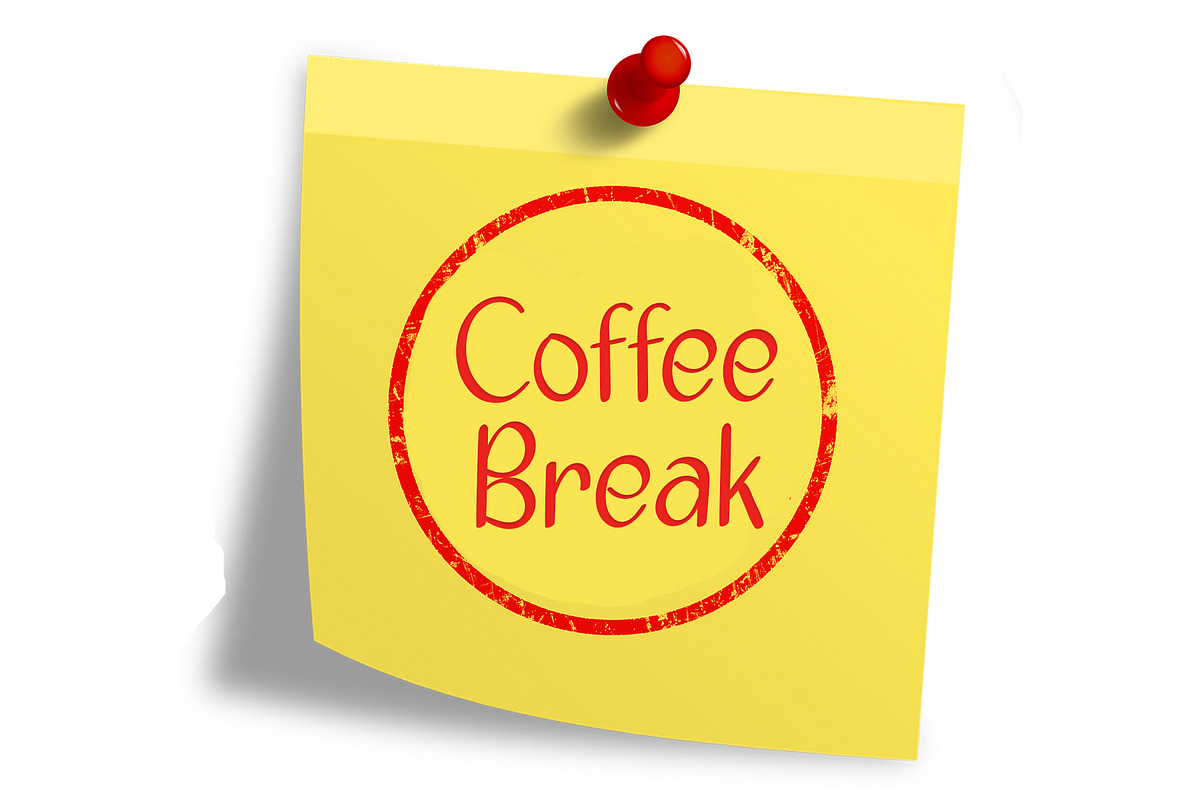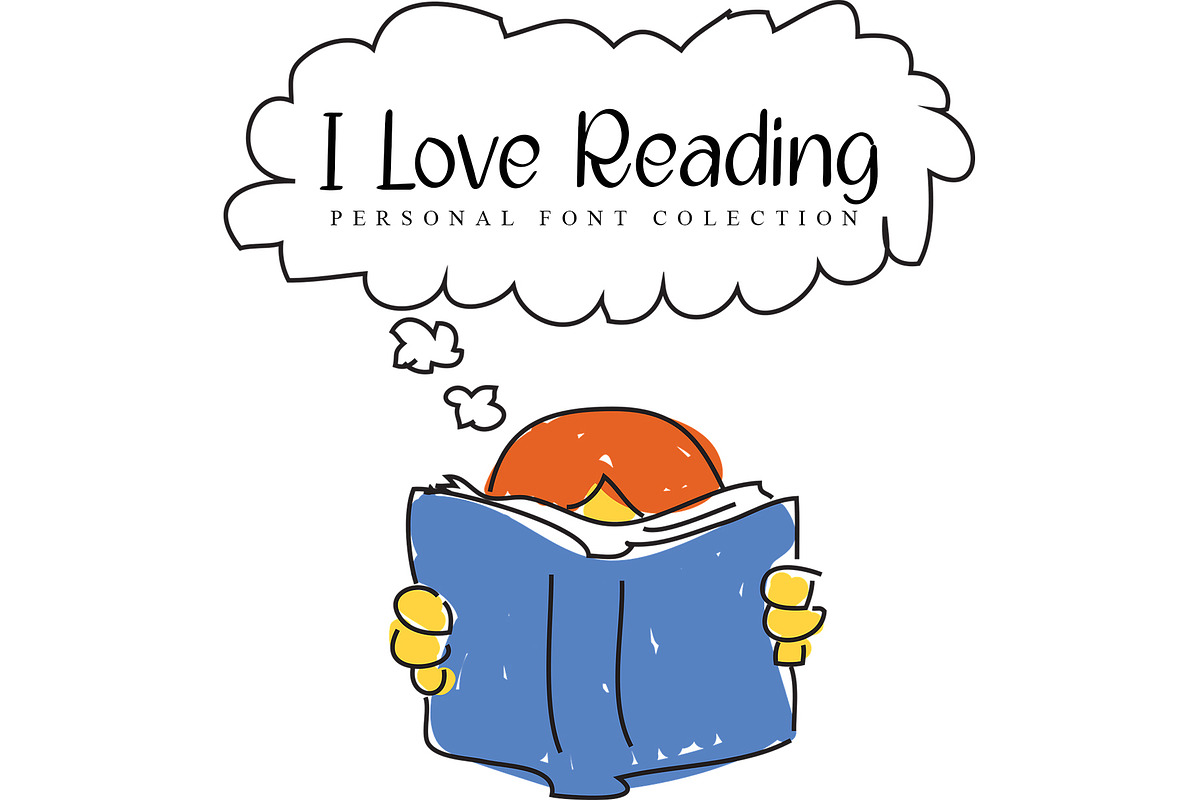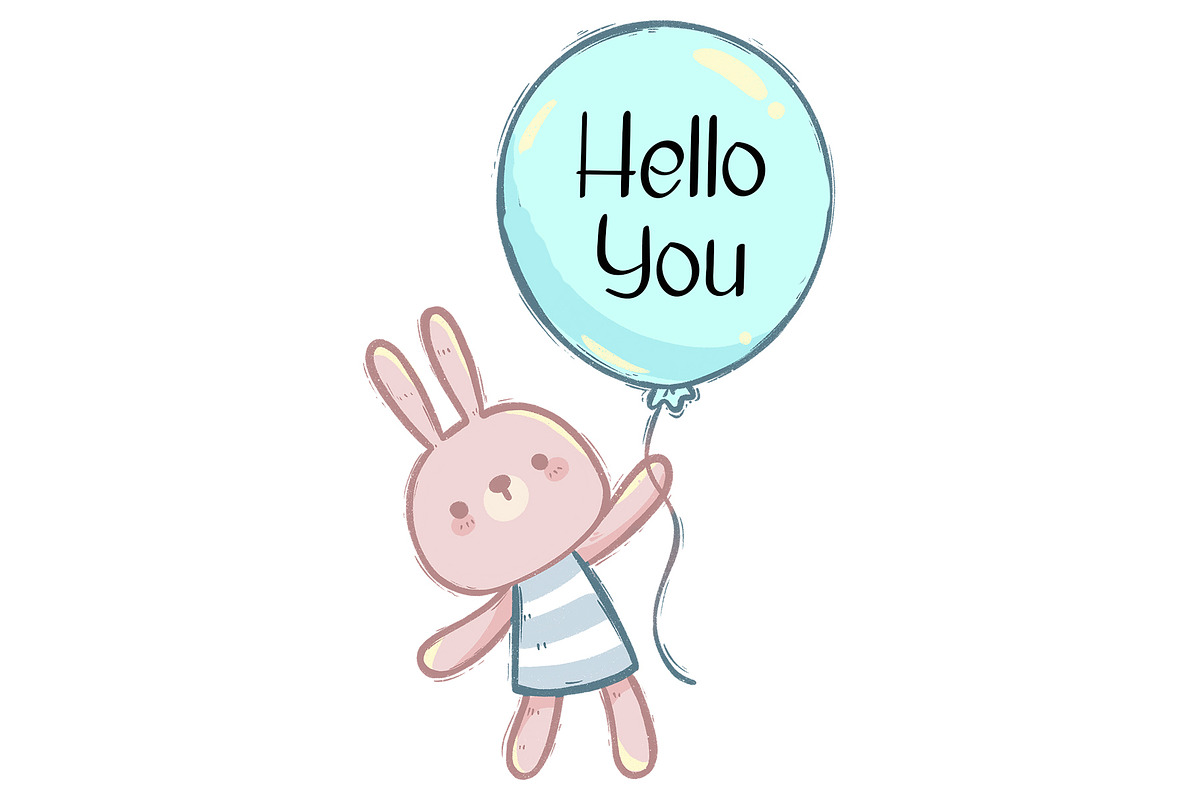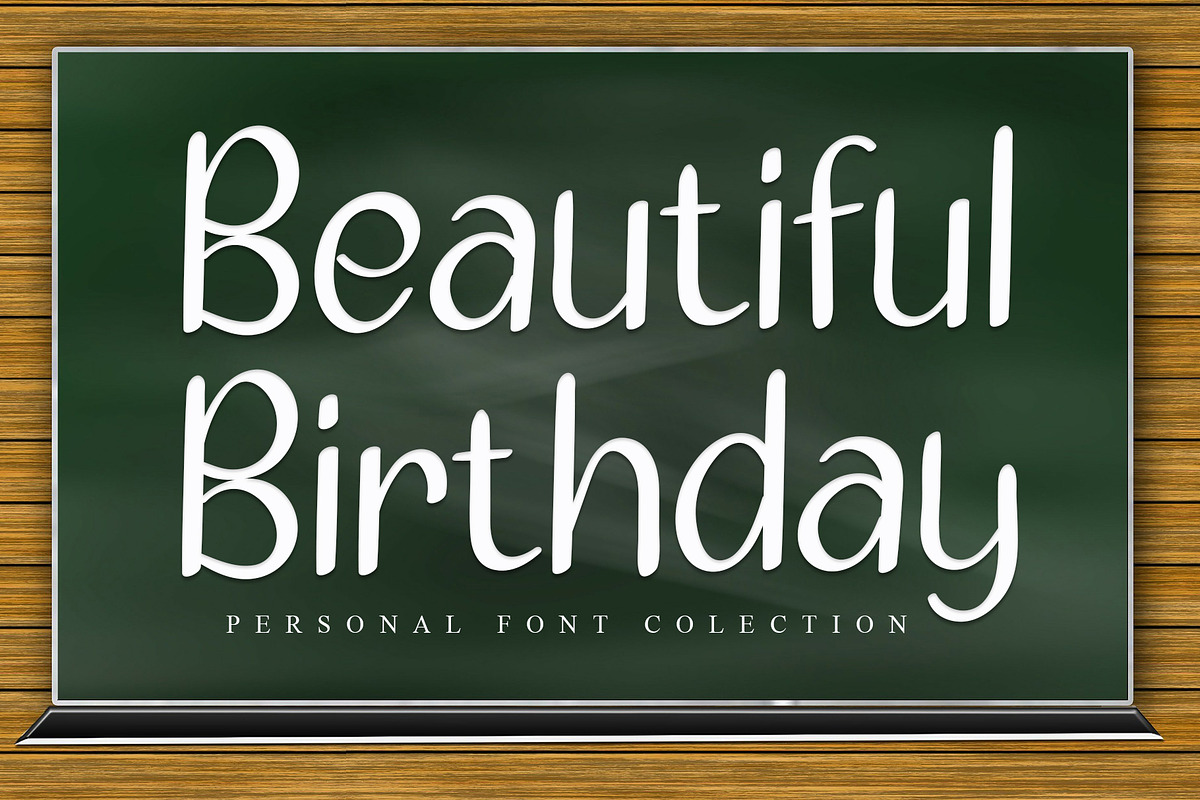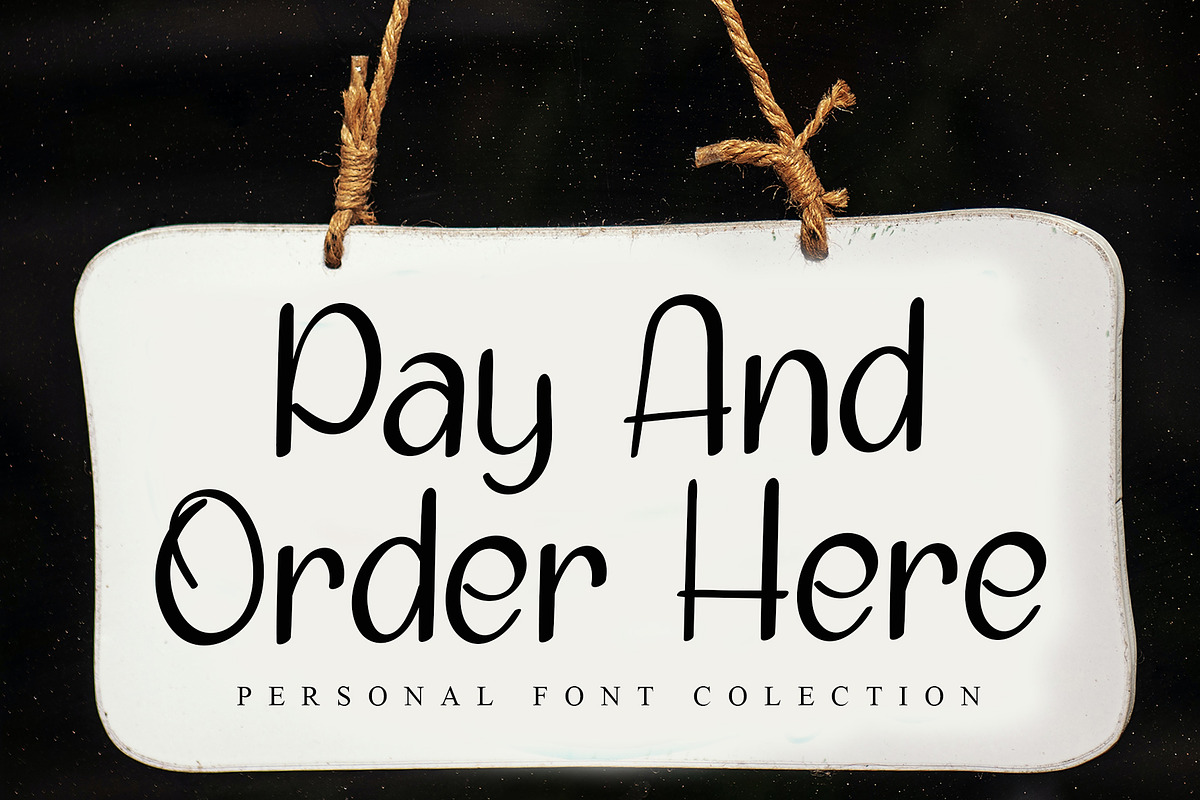
Beautiful Birthday
Beautiful Birthday is a handcrafted font. produce a unique and elegant handwriting. This font can be used on invitation cards, wedding parties, birthday parties, office work, websites, billboards and many others. This font will make your work more real and interesting. collection of this font in your library so that your font will be more complete.